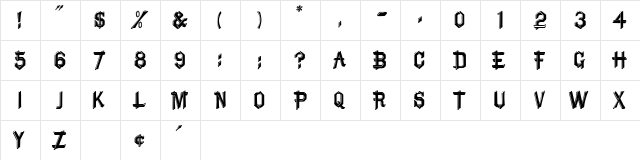
Force Regular
Design Context for Force Typeface
Force brings high-energy athletic personality to the page — its confident, muscular forms are built for impact.
Built for sports team identities, athletic apparel, event posters, and high-energy promotional material.
Pro Tip: Force thrives on contrast — try it large, bold, and tight against a clean background for maximum visual impact.